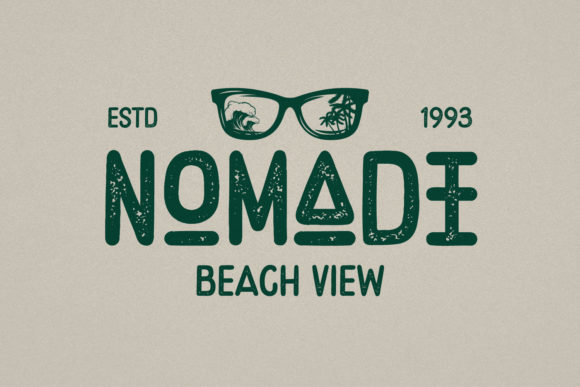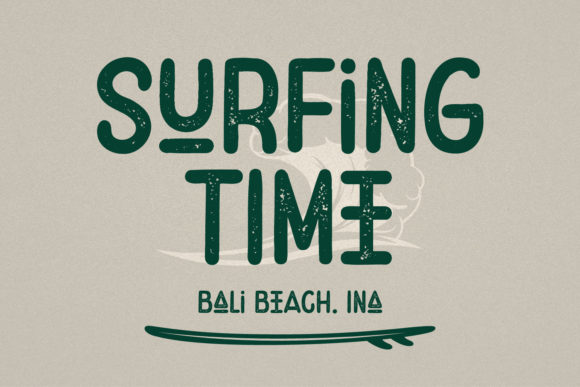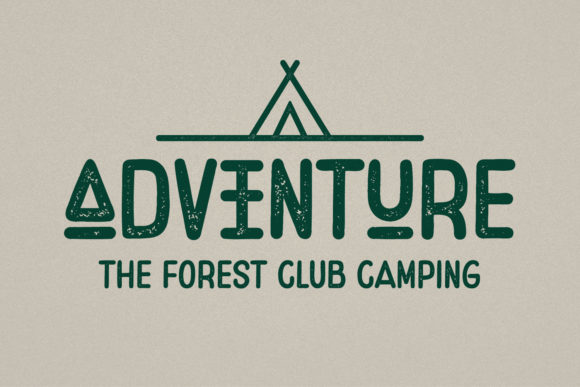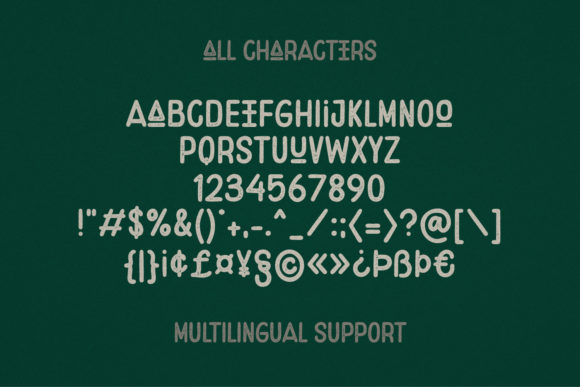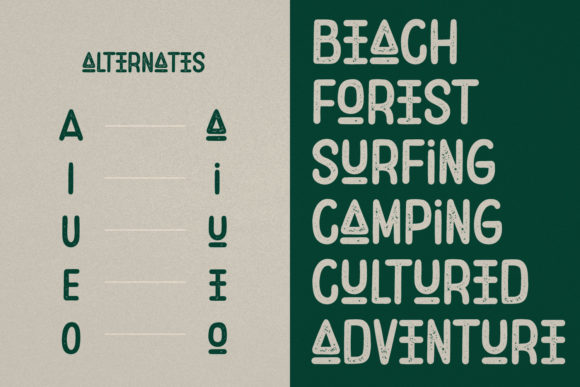
The Perfect Stamp of Creativity: Unleashing the Power of Brother Grade Font
Have you ever stumbled upon the perfect font that makes your design idea leap off the page? It’s that moment when everything falls into place, and your creativity knows no bounds. For designers, finding the right font can be the difference between a mediocre design and a masterpiece.
Introducing the Brother Grade Font, a clean and unique display font that boasts a cool stamp effect. Perfectly suited for banners, product packaging, marketing materials, covers, or other creative ideas, this font is a game-changer for designers looking to add a touch of personality to their work. With its versatility and aesthetic appeal, the Brother Grade Font is a valuable addition to any designer’s toolkit, allowing them to bring their most innovative ideas to life.
Brother Grade Font Key Features
- Unique Characteristics: The Brother Grade Font features a clear and legible design, with distinctive letterforms that enhance readability.
Designer Review: Brother Grade Font
Overall, I’m a bit mixed about the Brother Grade Font. While it has some nice qualities, it’s not without its limitations.
- Unique style: The font has a distinctive, hand-drawn feel that sets it apart from more generic sans-serif fonts.
- Craftsmanship: The attention to detail is evident in the subtle flourishes and textures that add depth to the font.
- Readability: Despite its unconventional style, the font remains legible even at smaller font sizes.
- Consistency: The font’s irregularities can sometimes make it feel inconsistent or uneven.
- Lack of versatility: The font’s style is quite specific and may not be suitable for a wide range of applications.
- Overuse: The font’s distinctive style can be overwhelming if overused – be careful not to overdo it!
The Brother Grade Font is a great choice for projects that need a unique, handcrafted feel. However, it may not be the best fit for more traditional or straightforward designs. With some careful consideration and restraint, this font can add a touch of personality to your work.
Tips for Getting the Most Out of Brother Grade Font
Use Brother Grade Font to create a unique and nostalgic look in your designs. It’s perfect for vintage-inspired projects, such as retro-style posters or old-school advertisements. Experiment with different font sizes and styles to achieve the desired effect.
Brother Grade Font is commonly used in:
- Retro-style posters and advertisements
- Vintage-inspired packaging and labels
- Old-school-inspired digital products and websites